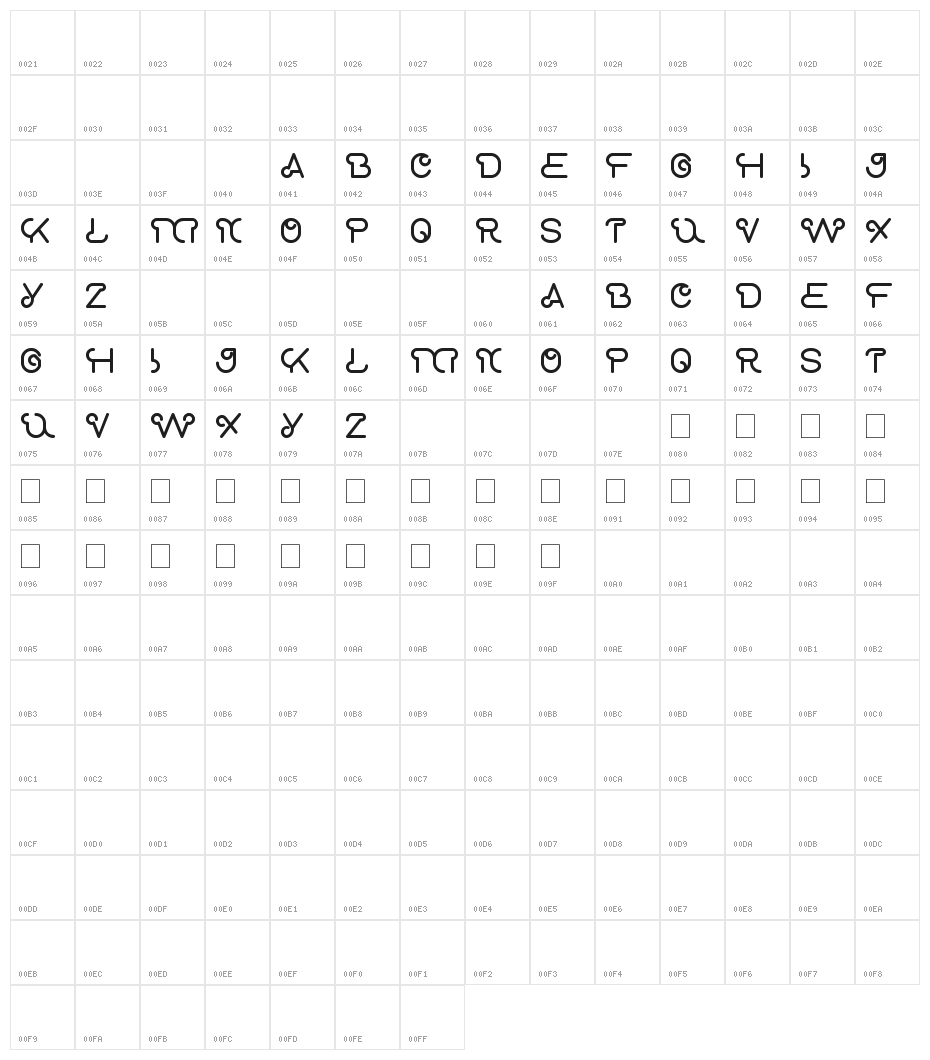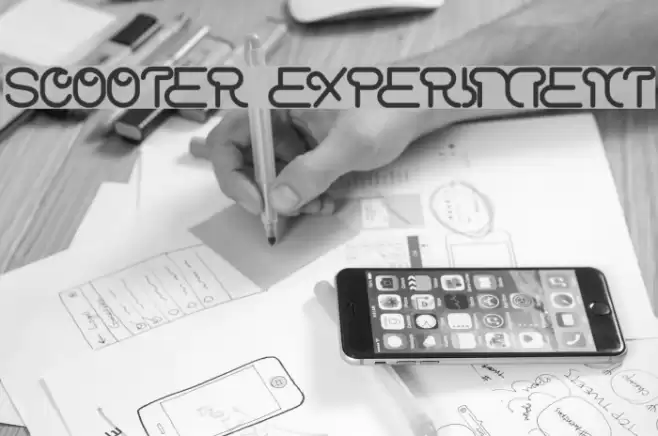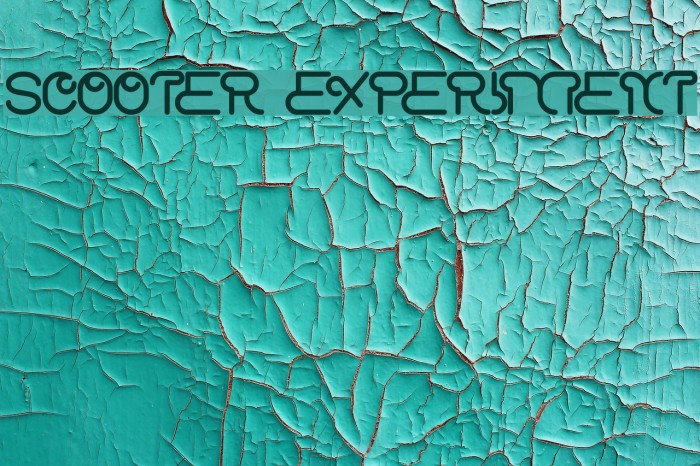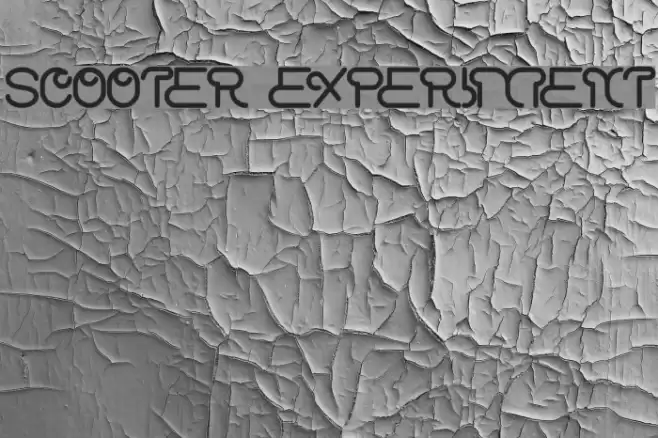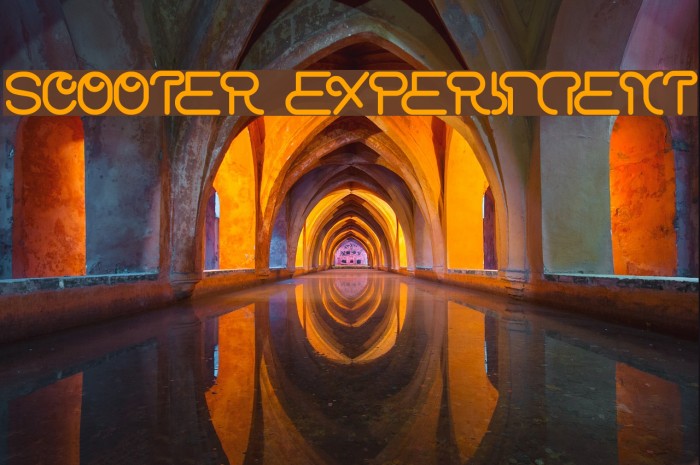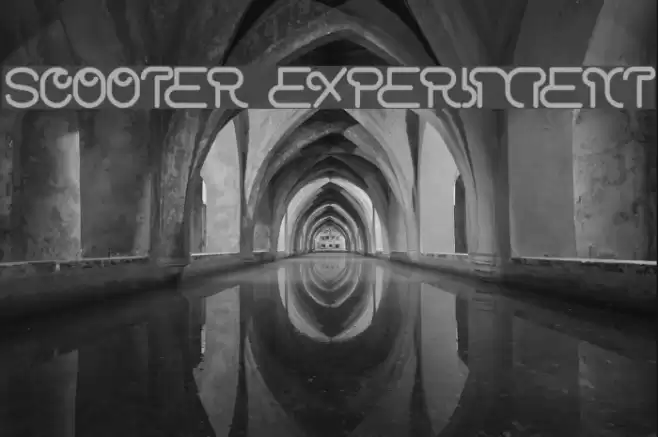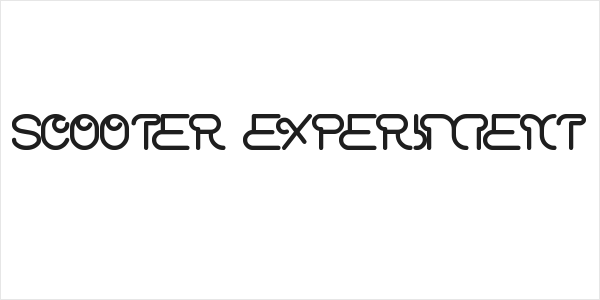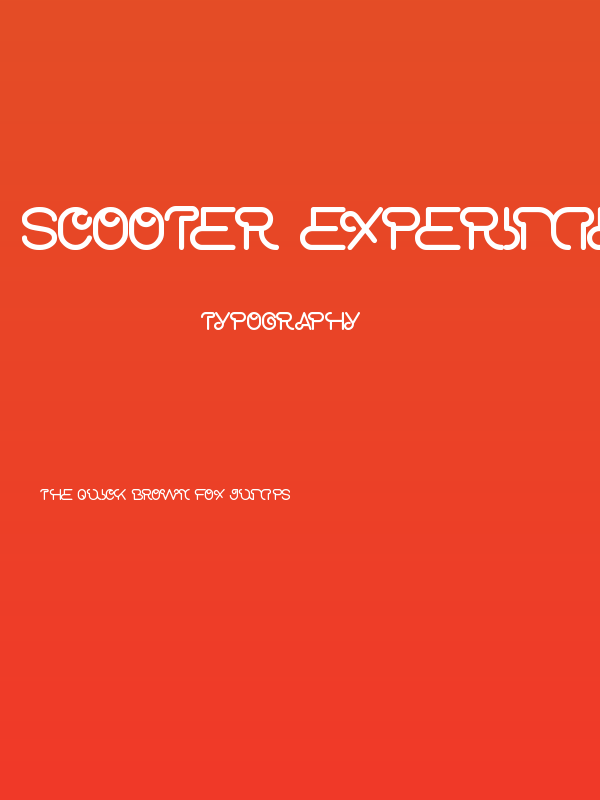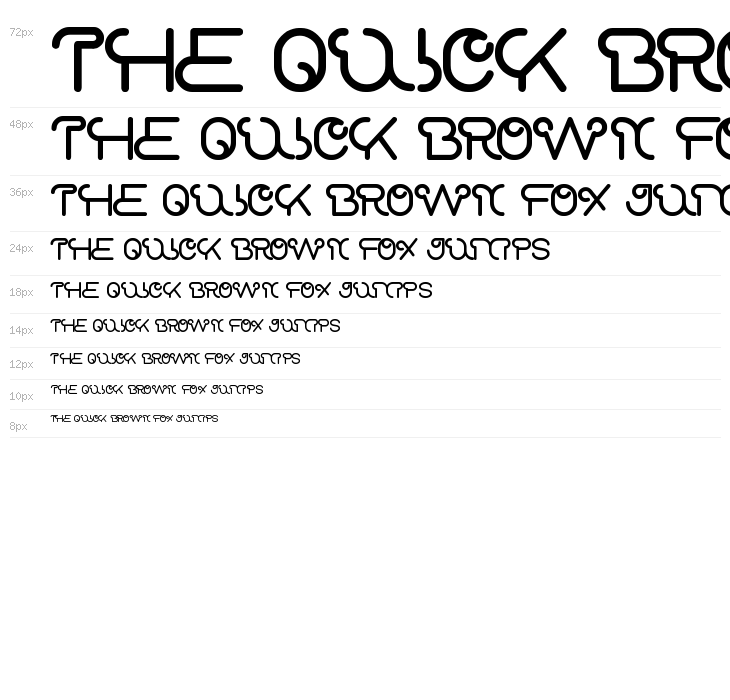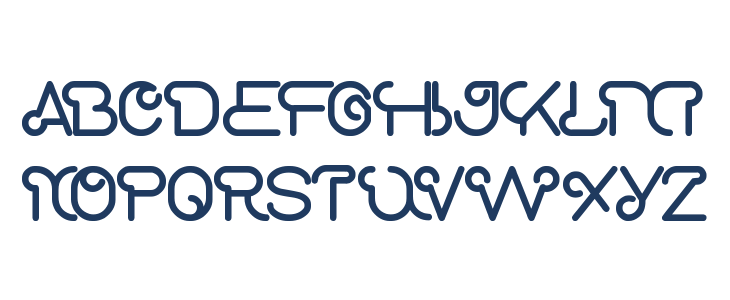
scooter experiment Font
scooter experiment Description
This font features a unique and playful design with rounded, interconnected strokes that create a sense of movement and fluidity. The characters are bold and have a consistent thickness throughout, giving them a modern and cohesive appearance. The rounded edges and loops add a whimsical touch, making it suitable for creative and informal projects. The uppercase letters are distinct and easily recognizable, while maintaining a uniform style that ties the entire alphabet together. This font's design is both eye-catching and versatile, making it a great choice for projects that require a fun and engaging typeface.
| Proposed Projects | Ideal for children's books, playful branding, creative posters, and modern digital designs. |